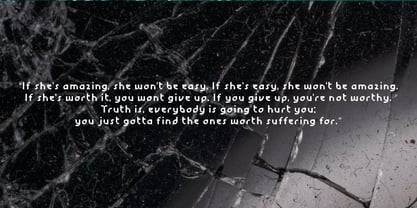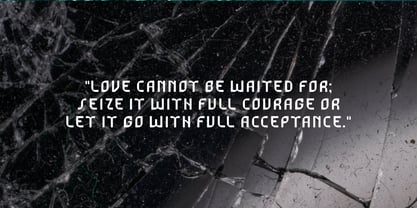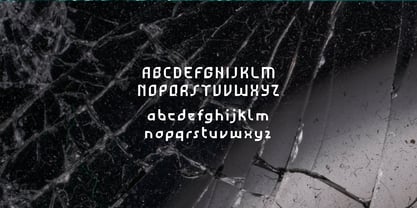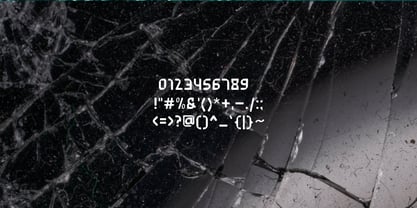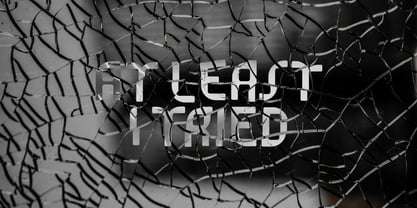
At Least I Tried
by WildanN
The At Least I Tried Font Family was designed by and published by WildanN. At Least I Tried contains 1 styles. More about this family
At Least I Tried is a modern and clean, with a straightforward, minimalistic design. Slightly wide, which enhances readability and gives the text a balanced, open look. This style of font is often used for impactful quotes or statements, as it conveys clarity and strength.
The clean, geometric style suits modern brand identities, particularly for tech, lifestyle, or minimalist companies. Its clarity and strong presence make it ideal for grabbing attention in posters, banners, or magazine covers. It’s less ideal for body text due to its boldness, which can feel overwhelming for longer reading.